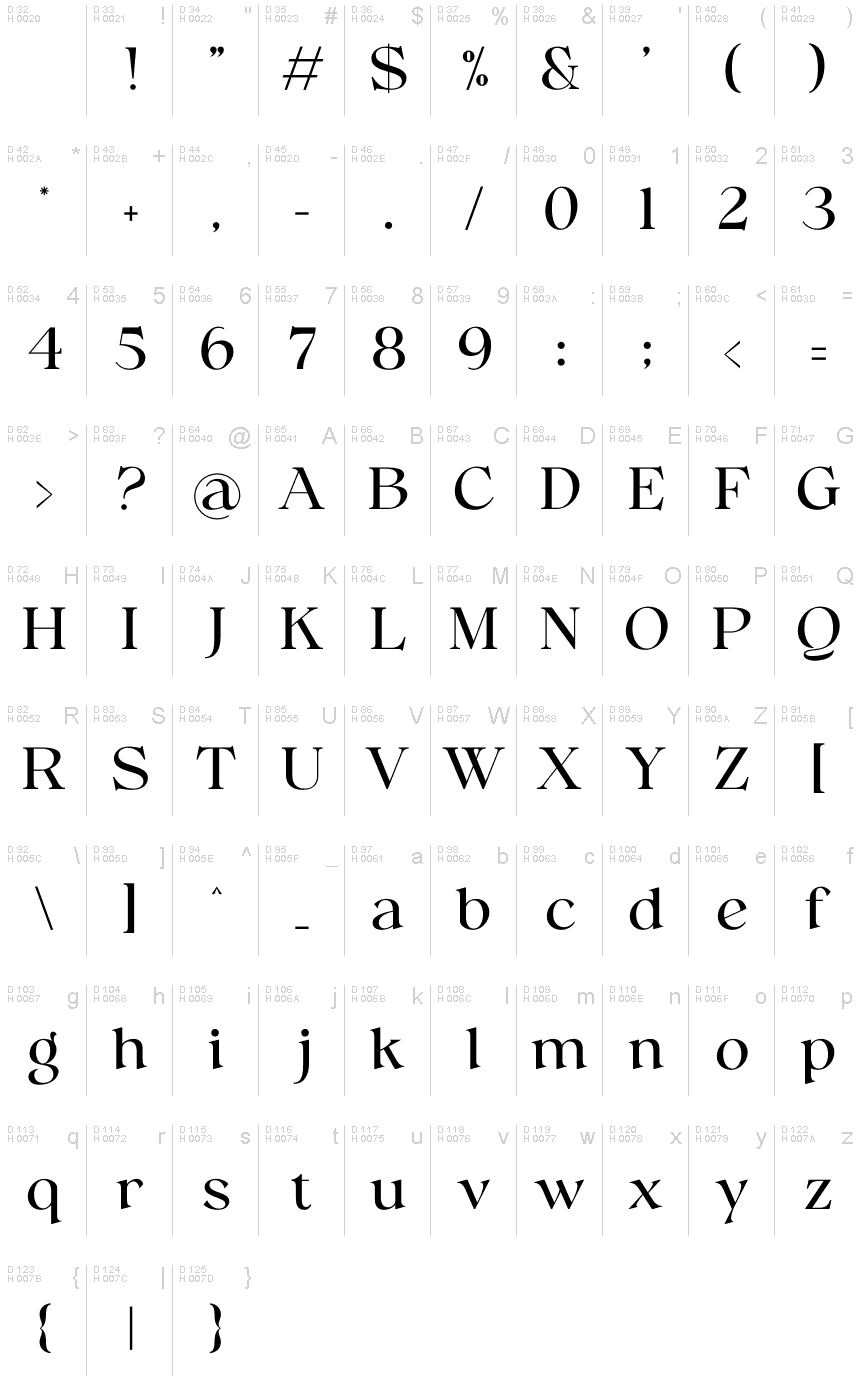
Auliare
Auliare, the elegant serif font created by BrandSemut, adds a touch of sophistication and timelessness to any project.
Its refined curves and delicate serifs make it perfect for high-end branding and luxury packaging design. With its classic appeal, Auliare is also an ideal choice for formal invitations and wedding stationery, giving an air of elegance to any event. Whether you're designing a magazine layout or creating a beautiful website, Auliare's versatility is sure to make your project stand out.